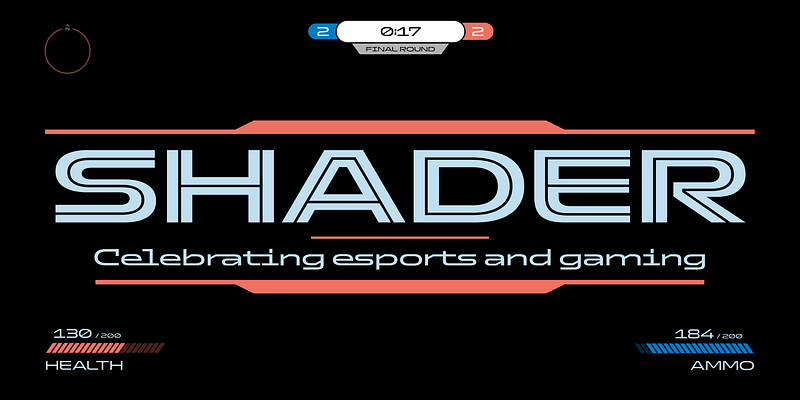
Shader Font Free Download is a bold and dynamic display typeface designed with an energetic and modern feel. With its unique design, Shader adds a sense of depth and dimensionality to your projects, making it perfect for headlines, posters, branding, and logos that need to make a strong visual impact.
Its clean lines and sharp, angular forms make it suitable for both digital and print projects. Shader works seamlessly with design software like Adobe Illustrator, Photoshop, Canva, and Figma, providing flexibility for a wide range of creative uses.